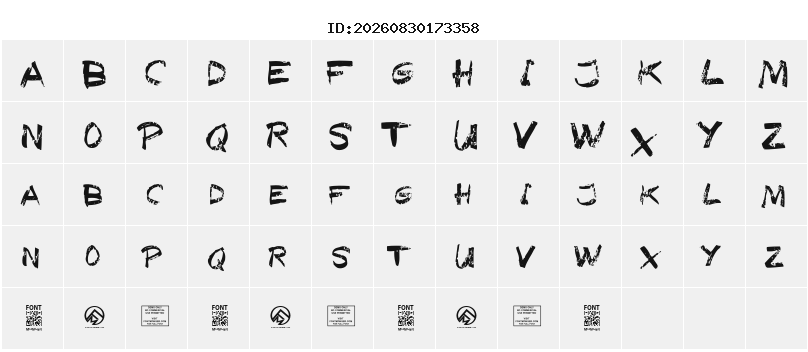
Texas Slaughter Preview
• Font Name: Texas Slaughter
• Designer: Font Monger
• Manufacturer: Font Monger
• Description: Texas Slaughter Regular is a font by Font Monger, designed by Font Monger (Chris Vile and Roland Huse) in 2015.